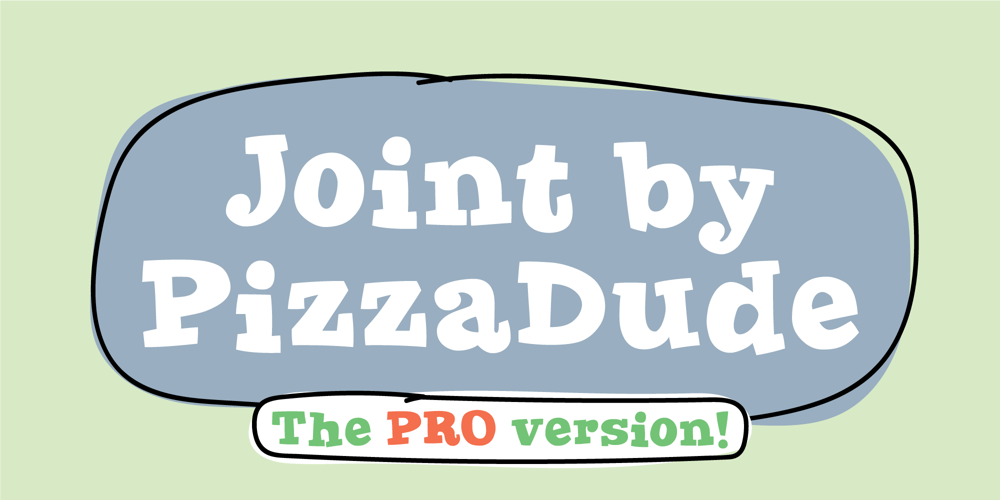
Joint By Pizzadude Pro Font Family was designed by Jakob Fischer and published by PizzaDude.dk. Joint By Pizzadude Pro contains 2 styles and family package options. Wicked, cheeky and geeky!That’s what went through my mind when updating this font. Originally made around year 2000, and now it comes in a restored and updated version. I cleaned up all curves and lines, added multilingual support and kerning.Based upon classic typefaces like Bodoni and Baskerville, but far more unpredictable and wild.